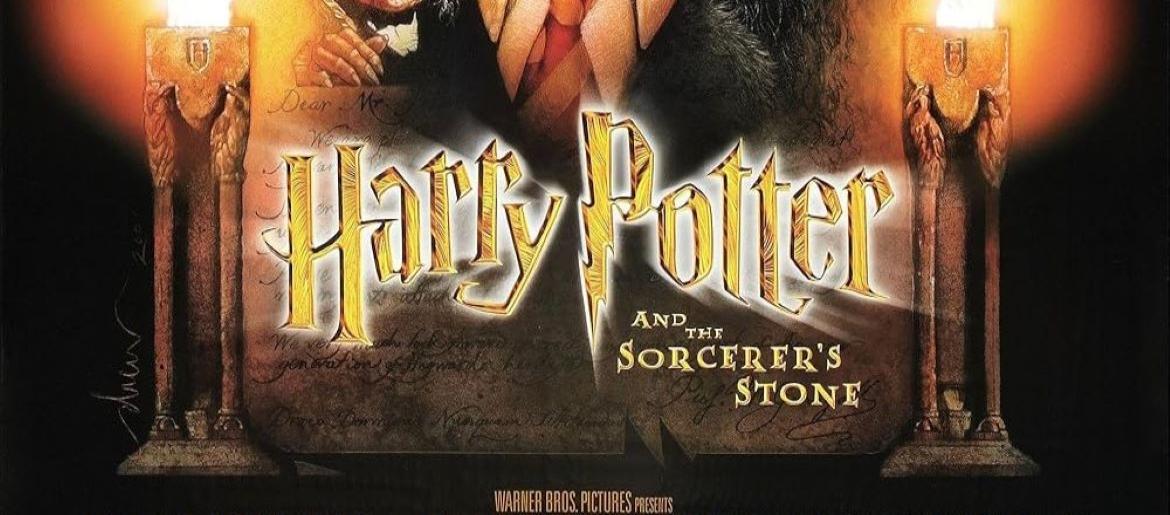
Harry Potter Font
Harry Potter font has always fascinated me with its magical and mysterious vibe. Its lightning-shaped edges and old-world lettering perfectly capture the essence of wizardry and wonder. Whether used for party invitations, fan art, or creative projects, this font adds a spark of fantasy that feels both nostalgic and exciting, carrying a story within every letter.